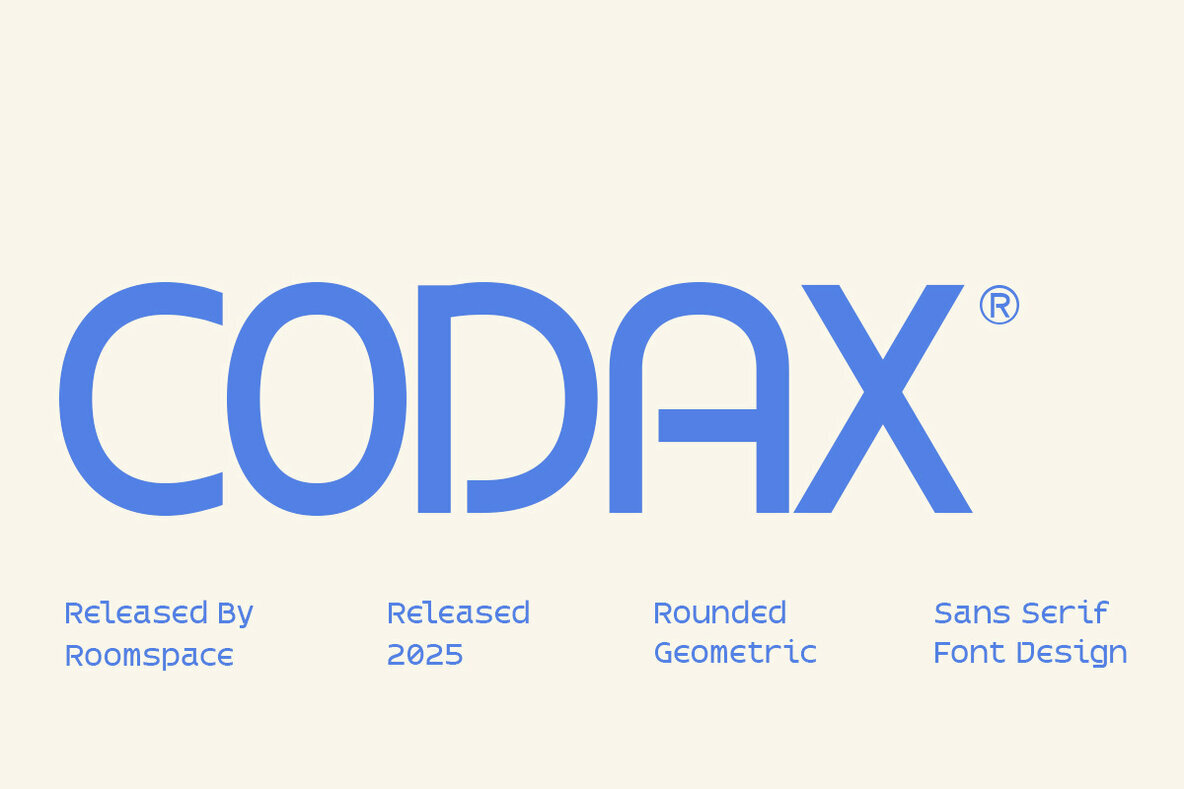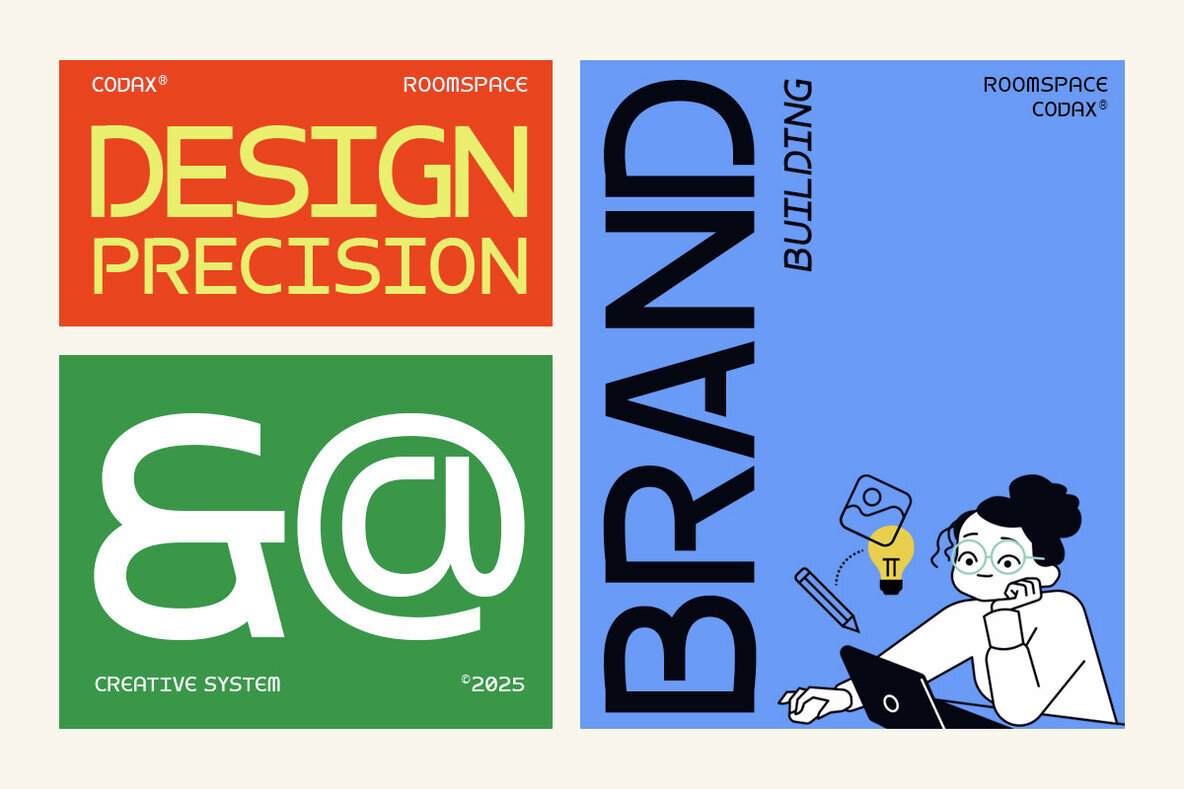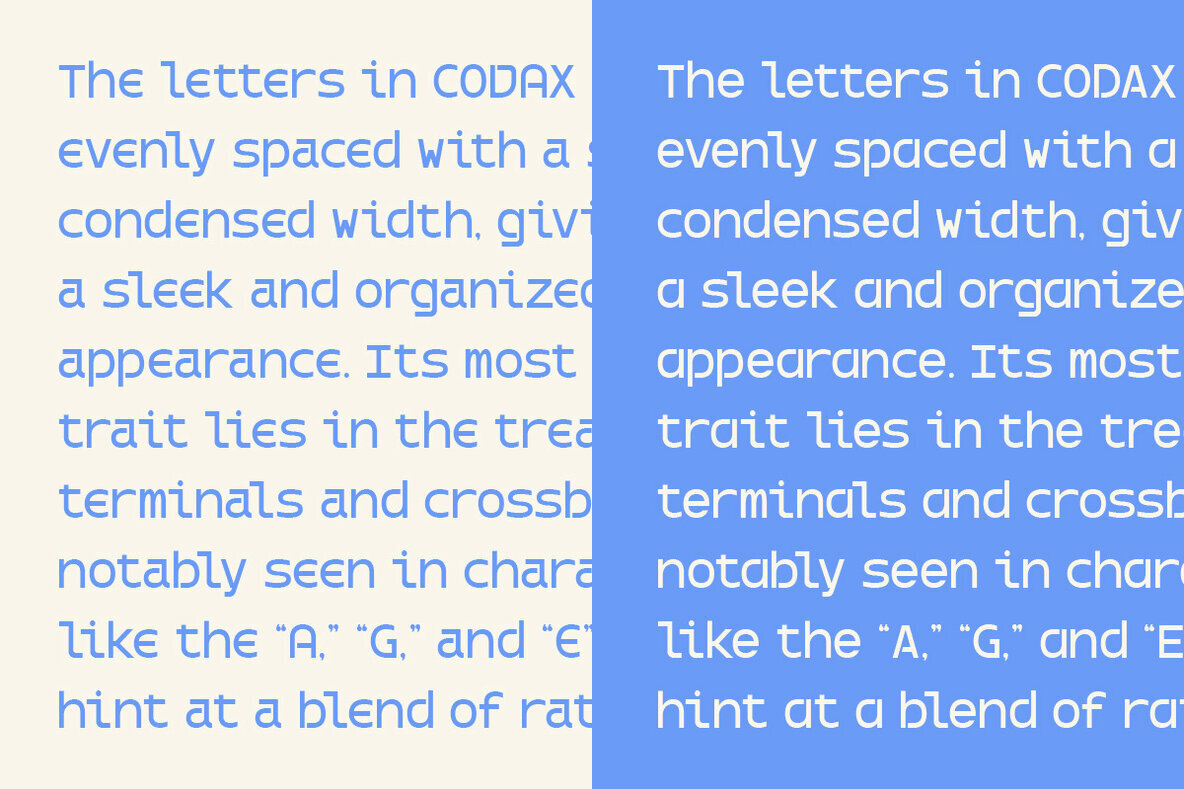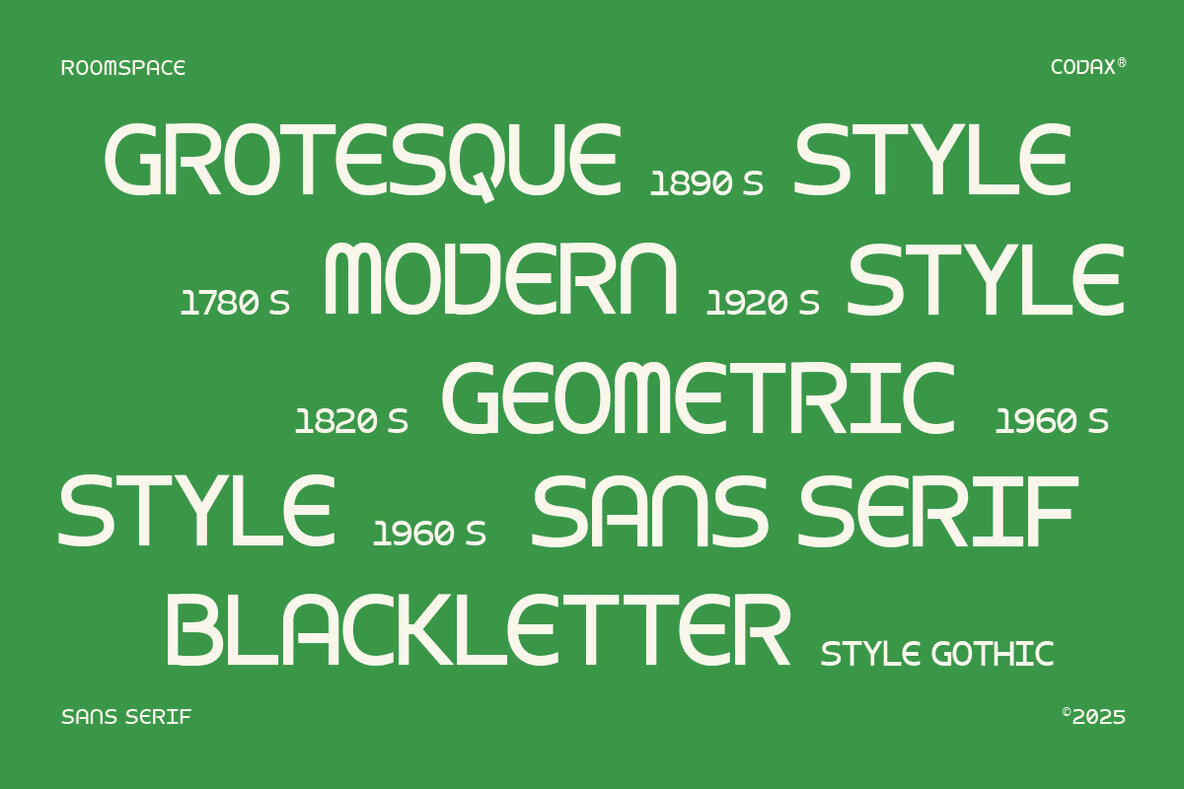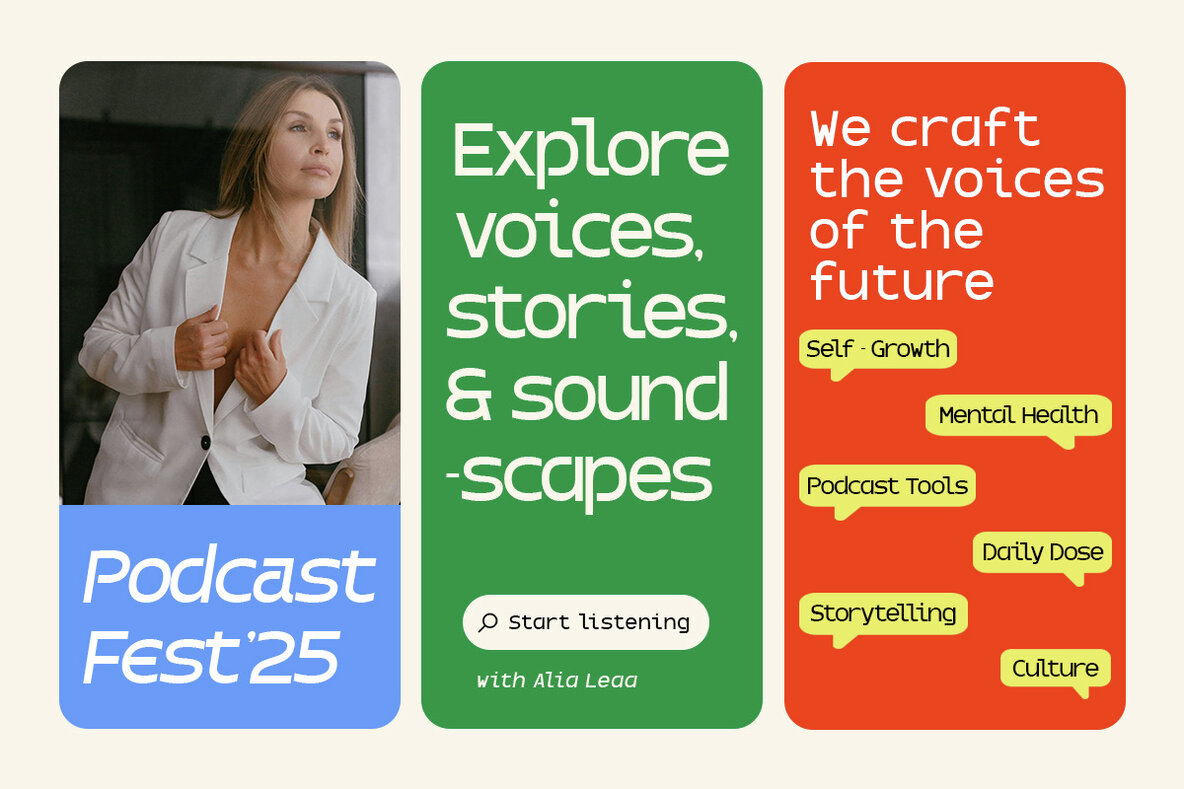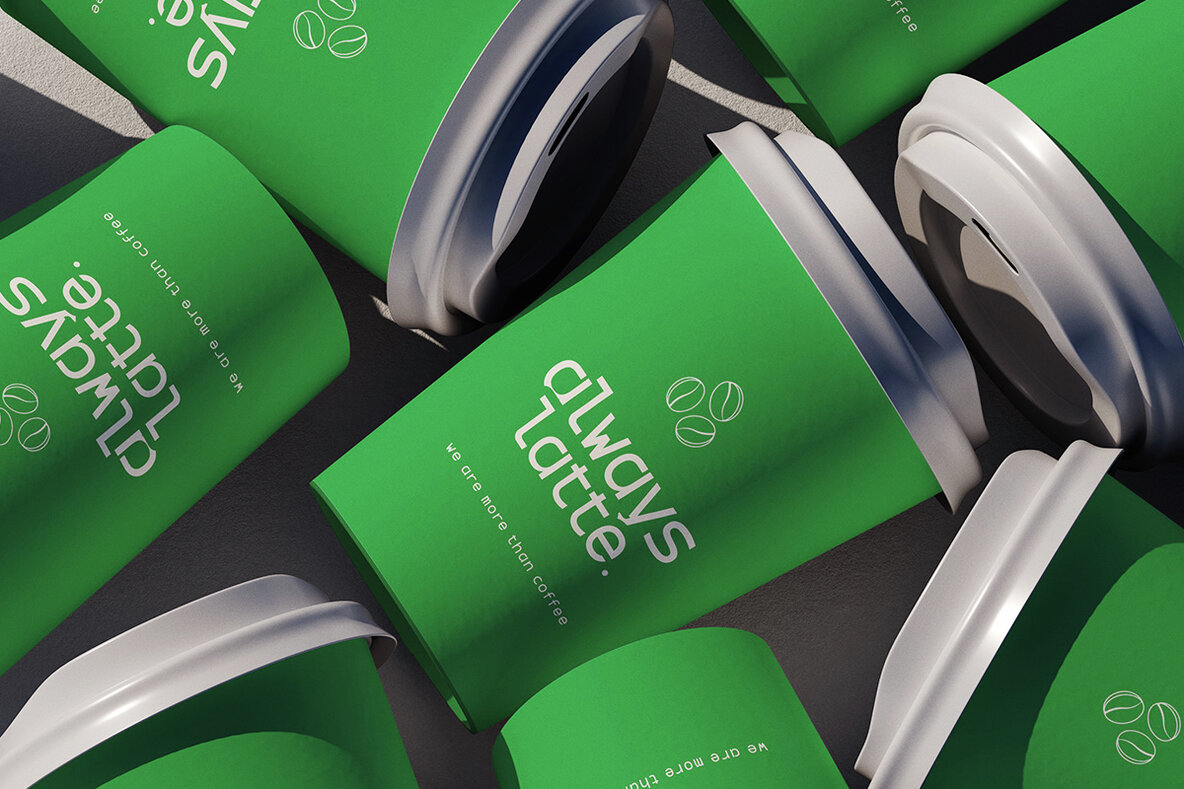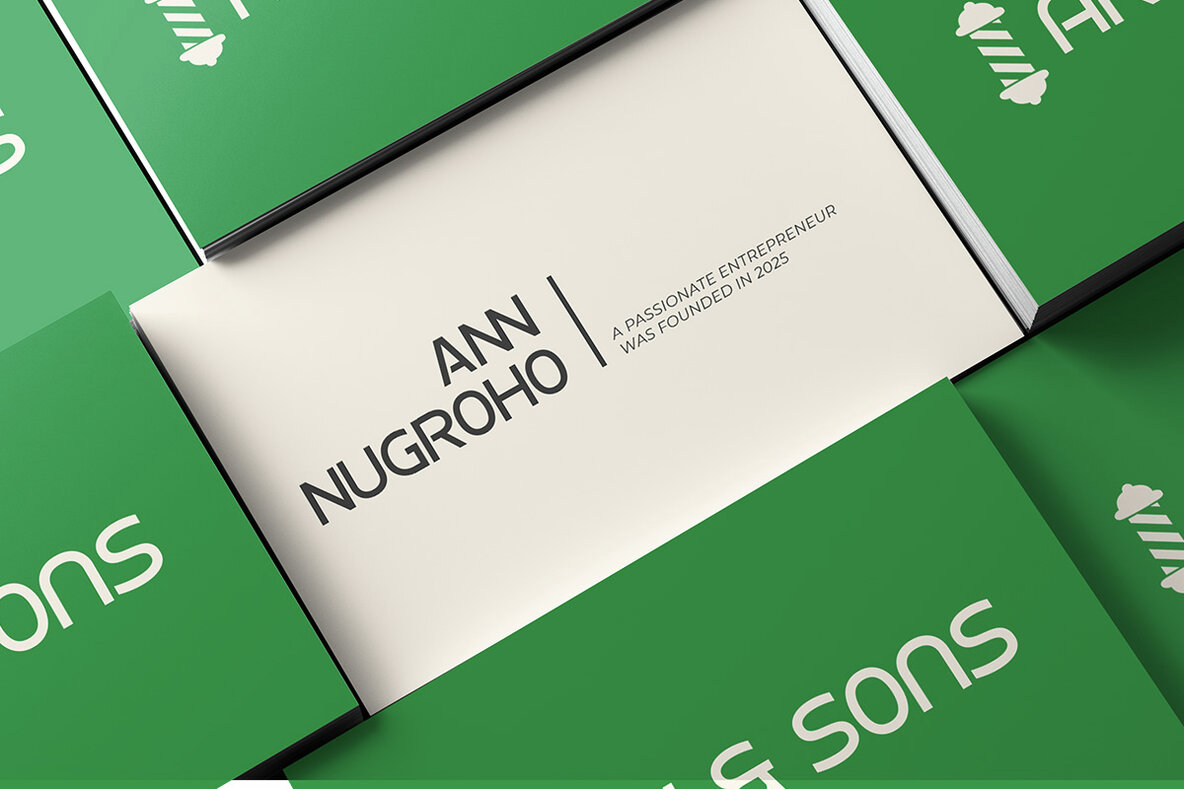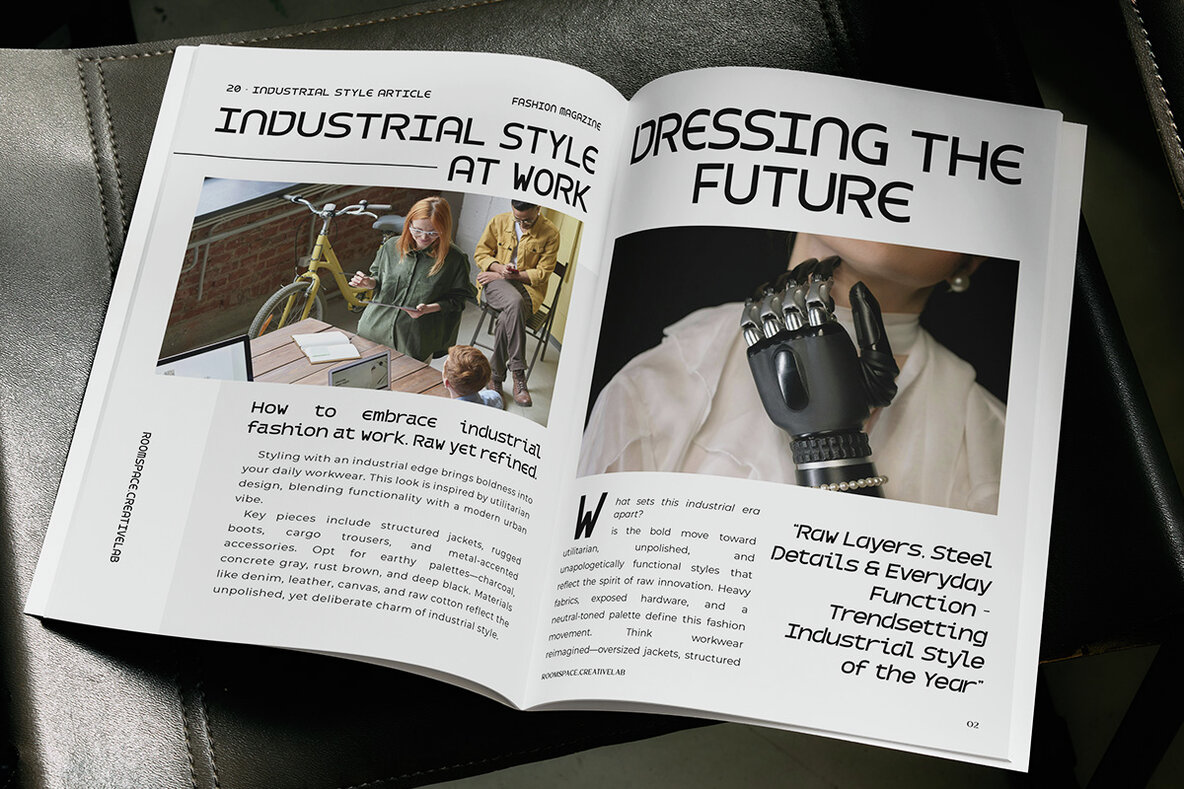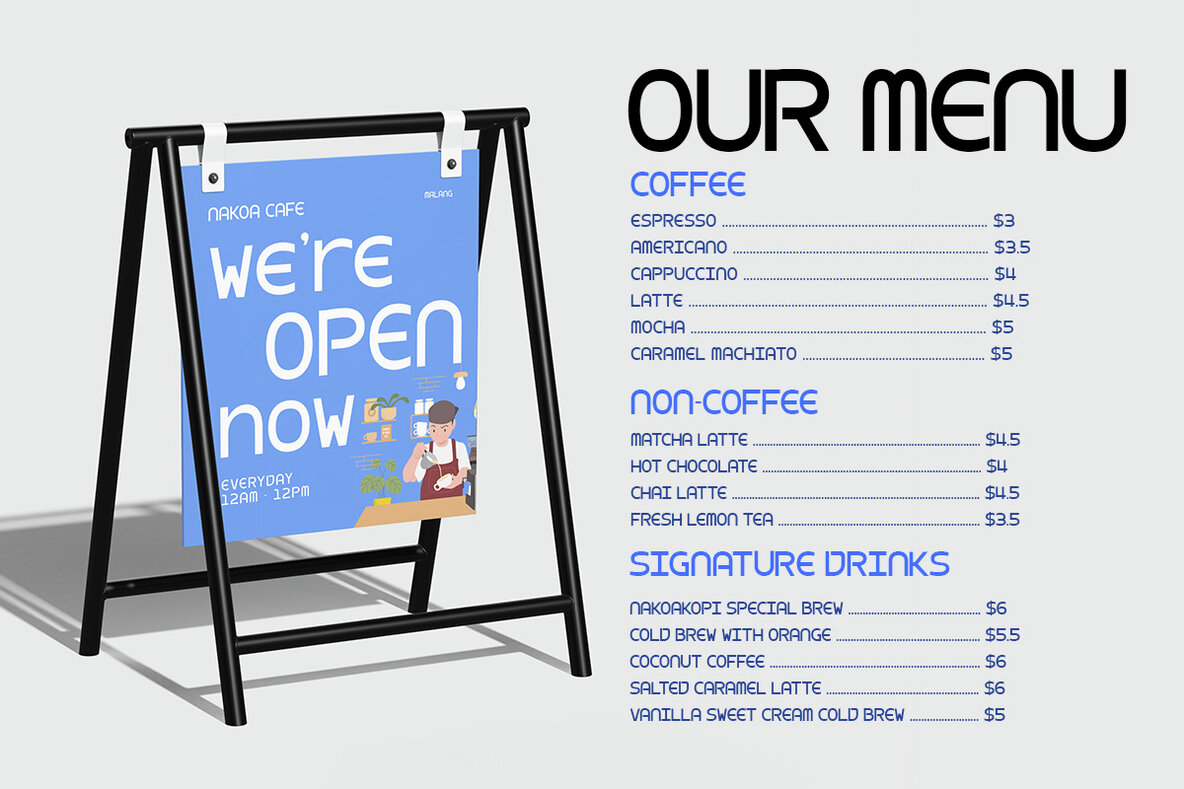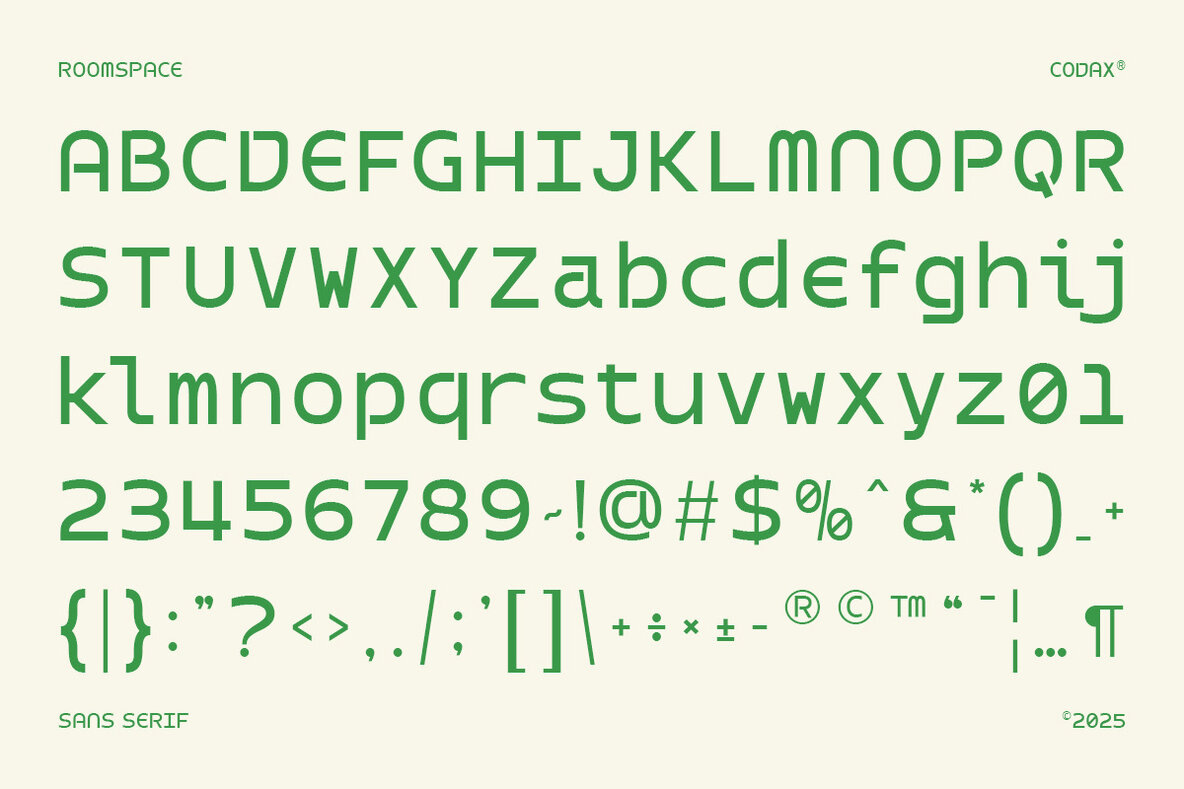
Codax Font
Codax radiates a modern and clean allure with its rounded geometric sans serif design. It offers a futuristic flair, engineered with a focus on simplicity and precision, ensuring your digital creations maintain readability without sacrificing style. If you're seeking a font for tech startups, UI/UX projects, digital branding, or logo designs, Codax proves ideal. Its smooth curves coupled with a bold structure seamlessly address the needs of both contemporary and futuristic editorial layouts, adding clarity and distinction.Codax: A Sleek Geometric Sans Serif